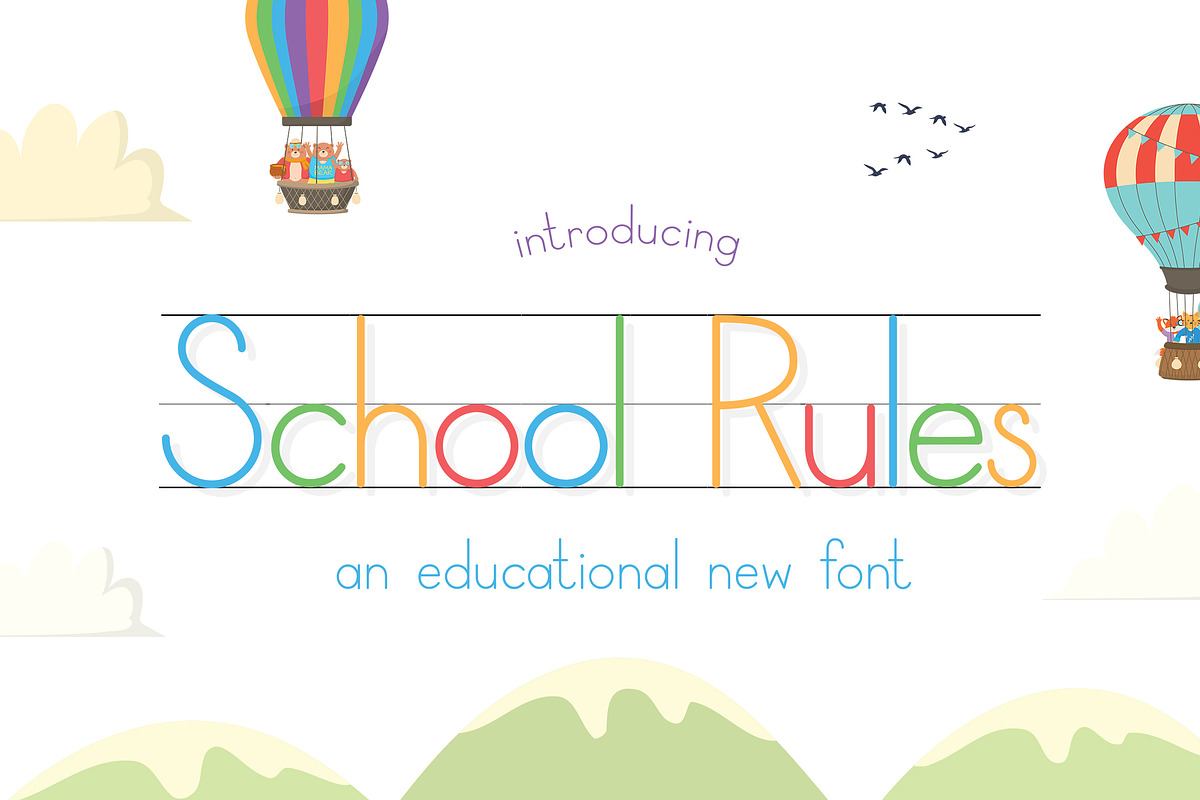
School Rules Font Free Download
Please note, to use this font for commercial purposes, you must purchase the full version. School Rules is a fun and educational font designed to capture the playful spirit of school life. With its clear and friendly letterforms, this font is perfect for creating classroom materials, school-themed projects, invitations, and branding. Whether you're designing for an educational event, a children's book, or a fun school campaign, School Rules adds a cheerful, approachable touch to your work. Test it out and enjoy free download access for personal use. Experience the school-inspired charm of School Rules Font Free Download before purchasing the commercial license. Add a friendly, educational touch to your designs with School Rules.